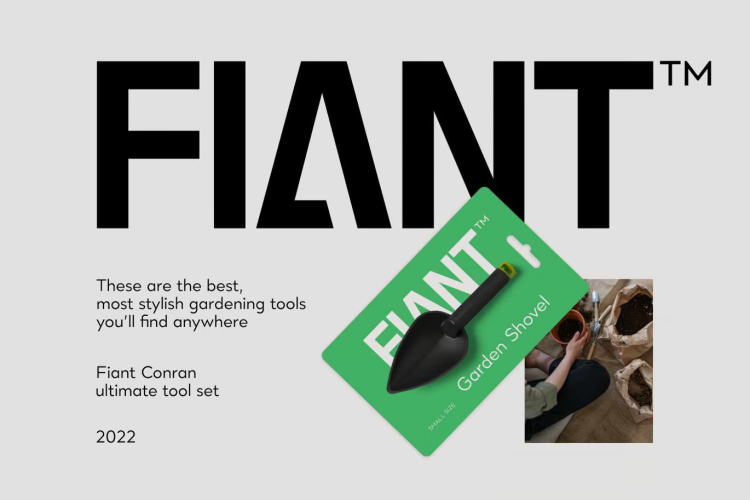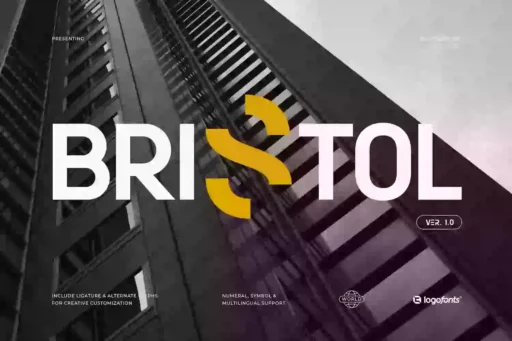
Bristol Font
Bristol is a highly flexible Sans Serif font by logofonts suitable for product logos, posters, headline text, business cards, websites, magazines, packaging, stationery,…
Bristol is a highly flexible Sans Serif font by logofonts suitable for product logos, posters, headline text, business cards, websites, magazines, packaging, stationery, and much more. It helps you to design your own logo type since it has a huge gallery of characters. Bristol comes with OpenType features that open up a library of extra characters and ligatures for you to choose from and work with.
Where Bristol Font works best
Bristol Font stays legible at small sizes, which makes it a strong choice for navigation, buttons and dashboards in web design and app interfaces.
Clean sans serifs like Bristol Font are the default language of SaaS, fintech and product branding.
What is Bristol Font good for?
Bristol Font is a Sans Serif Fonts typeface tagged Branding, Editorial, Free, Packaging. It works well for headlines, logos, posters, social media graphics and branding projects that need a distinctive sans serif fonts look.